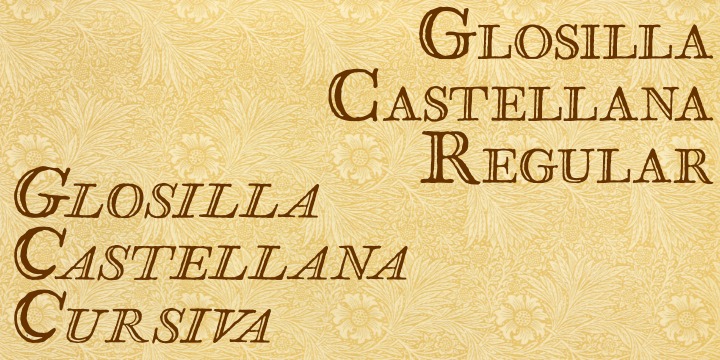
• Glosilla Castellana
Glosilla Castellana is a classic font design remastered by the type foundry Intellecta Design. The letter forms of this traditional Roman type style make it ideal wherever a refined, classical appearance is desired.